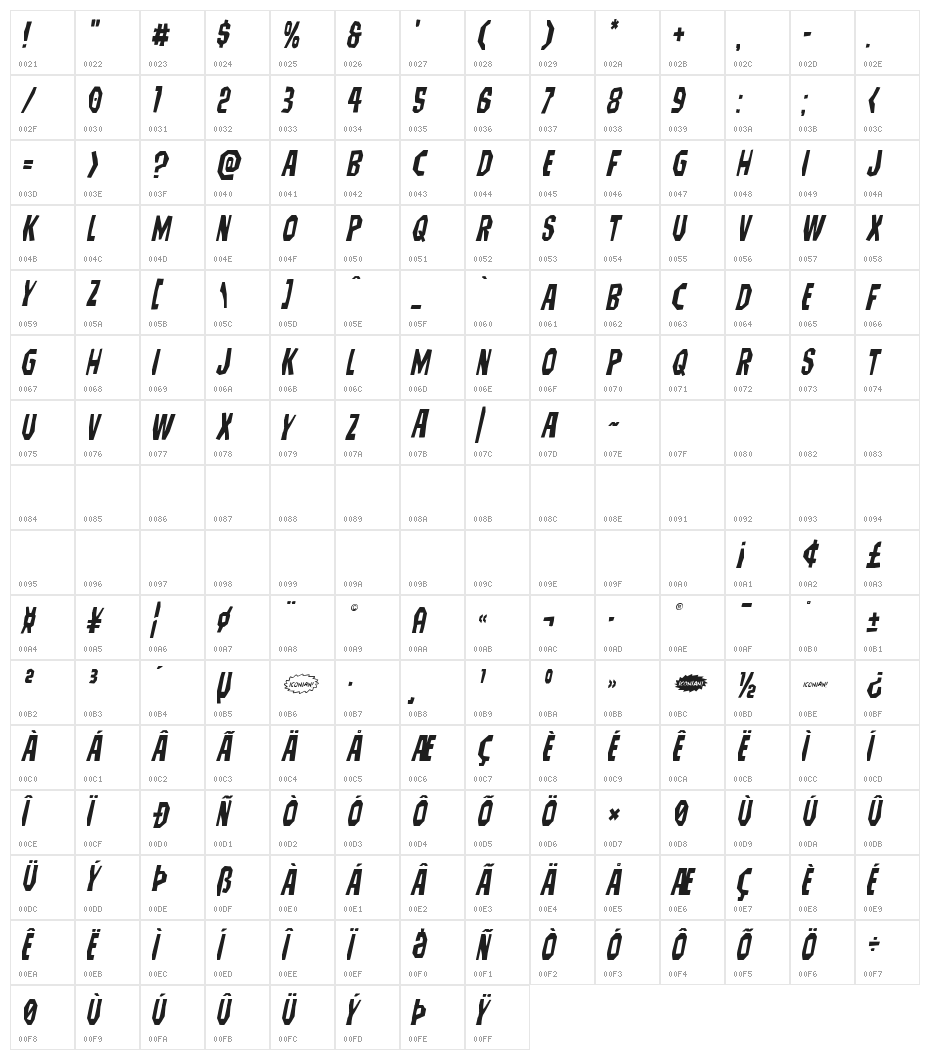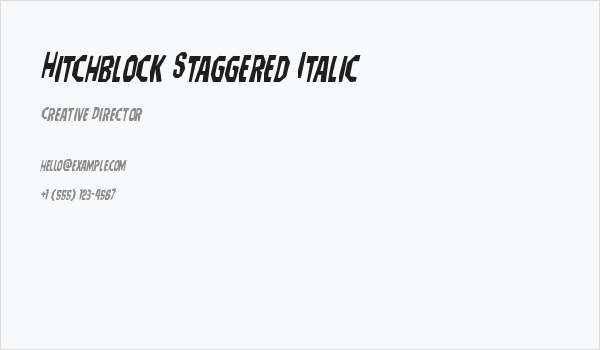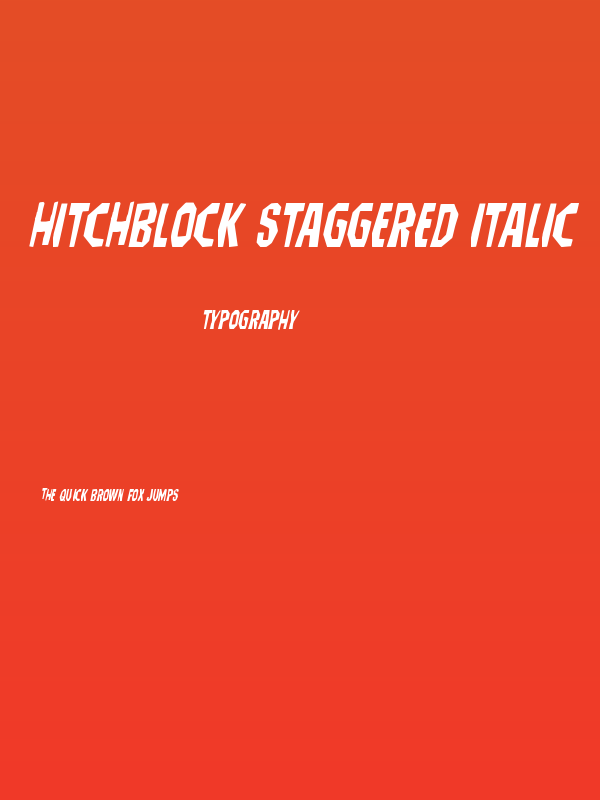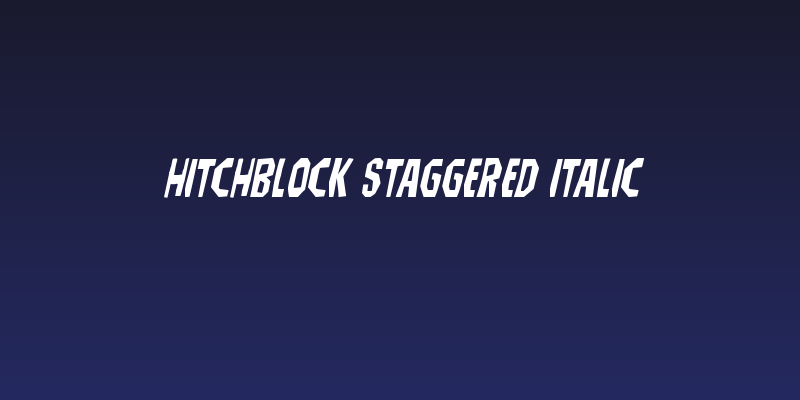
Hitchblock Staggered Italic Font
Hitchblock Staggered Italic Description
This font features a bold, italicized style with a distinct staggered appearance. The characters are angular and dynamic, giving a sense of movement and energy. The uppercase letters are particularly striking, with sharp edges and a forward-leaning stance. The numbers and special characters maintain this bold, angular aesthetic, ensuring consistency across all glyphs. The font's unique design makes it stand out, making it suitable for attention-grabbing headlines and impactful designs.
Proposed ProjectsIdeal for sports branding, dynamic posters, and modern advertising campaigns.